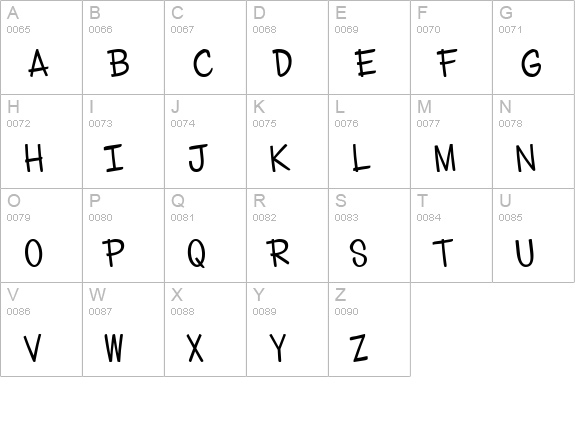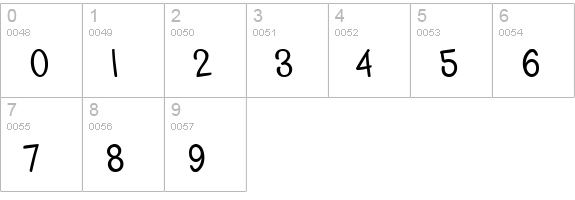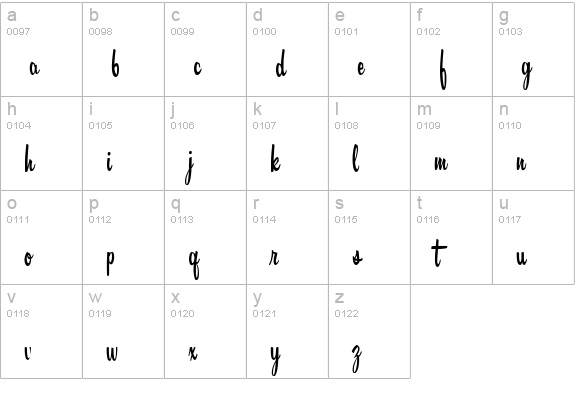
Introducing Mister Television font, a unique and versatile typeface that brings a touch of nostalgia and creativity to your designs. This font is perfect for adding a retro flair to your projects, whether you're working on branding, packaging, posters, or any other design need. Mister Television font features a bold and eye-catching style that is sure to grab attention and make a statement. Its vintage-inspired look is perfect for capturing the essence of classic television and old-school charm. Best of all, Mister Television font is completely free to download at FontsMarket.com. You can easily add this font to your collection and use it in your projects without any cost. Don't miss out on this fantastic opportunity to enhance your designs with the unique style of Mister Television font. Download it today and start creating stunning visuals that stand out from the crowd.